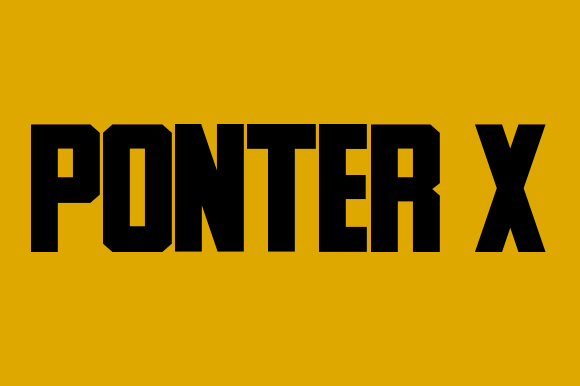
Prepare to be mesmerized by Ponter X, the captivating display font that embodies boldness and confidence. This extraordinary typeface is not merely a collection of letters; it's an artistic masterpiece, meticulously crafted to elevate your creative endeavors to unparalleled heights.
Unleash your imagination and let Ponter X become your trusted ally in creating visually stunning masterpieces. Whether you're designing a captivating brand logo, crafting an unforgettable marketing campaign, or simply seeking to add a touch of sophistication to your personal projects, this font is guaranteed to leave an indelible mark.
Step into a world of boundless possibilities, where every word you type transforms into an expression of your unique style. Ponter X possesses an inherent ability to captivate and allure, captivating the attention of all who lay their eyes upon it.
With its bold strokes and assertive presence, Ponter X is the perfect choice for making a statement that resonates deeply. It's a font that commands attention, leaving an unforgettable impression on your audience.
Envision your brand logo adorned with the distinctive characters of Ponter X, radiating confidence and authority. Picture your marketing materials imbued with its captivating charm, drawing customers in with irresistible allure. Experience the transformative power of Ponter X as it elevates your creative projects beyond the ordinary.
Don't settle for mediocrity; choose Ponter X and unlock the door to extraordinary design. Let this remarkable font ignite your imagination and guide you towards creating masterpieces that will leave a lasting legacy.